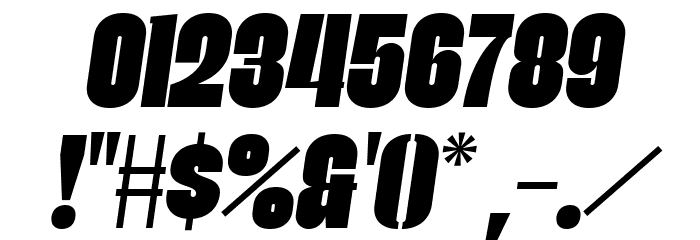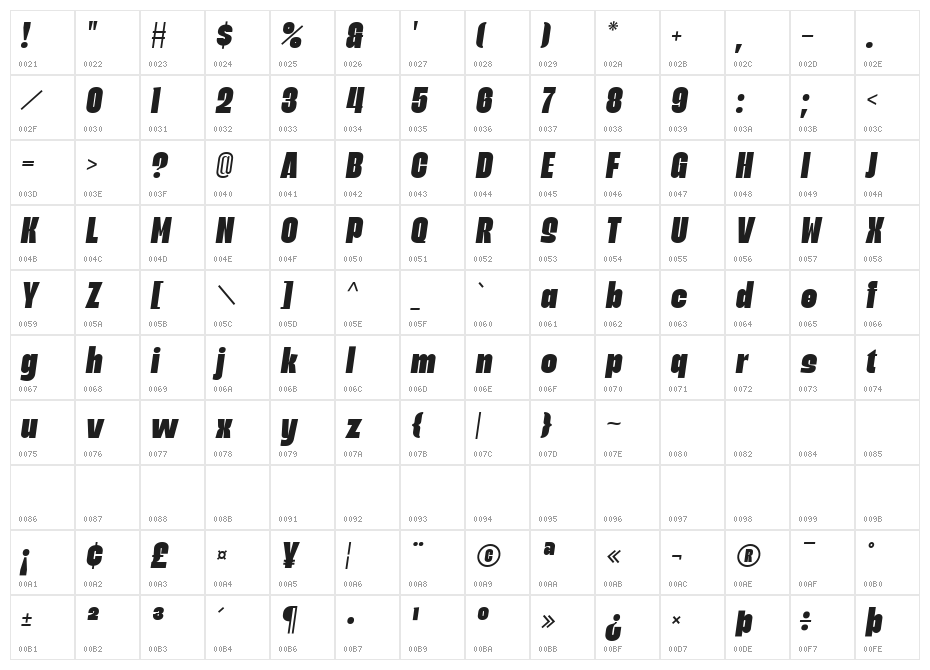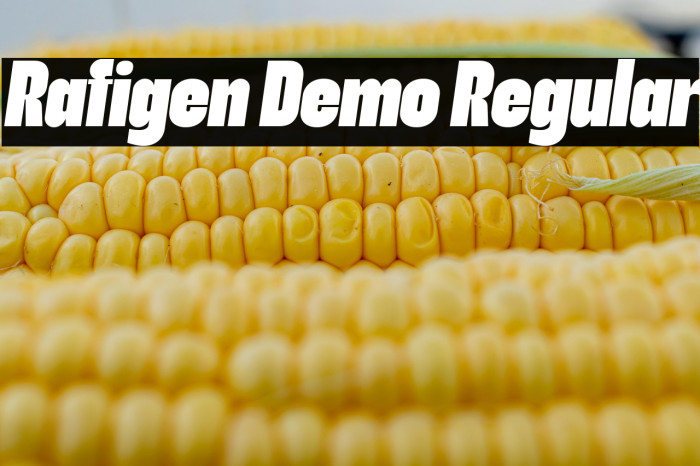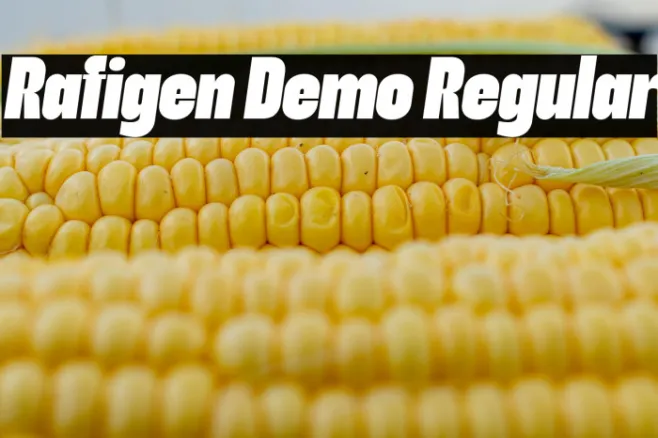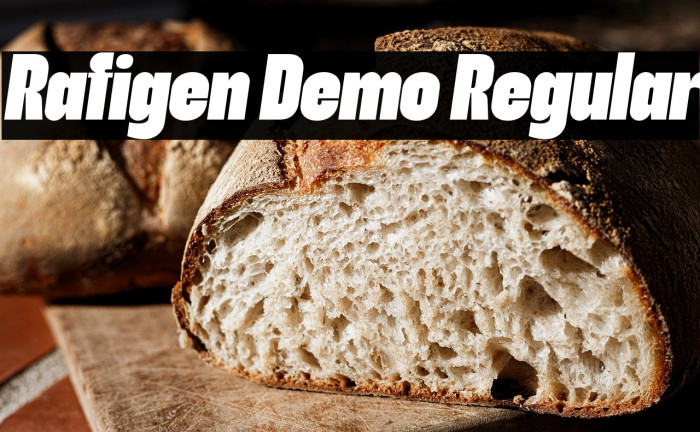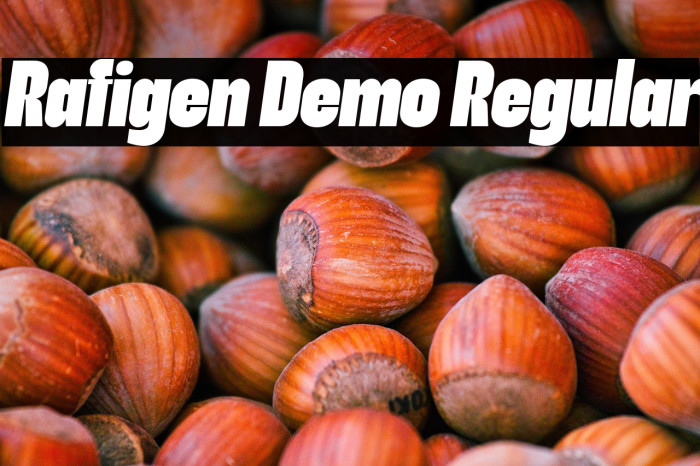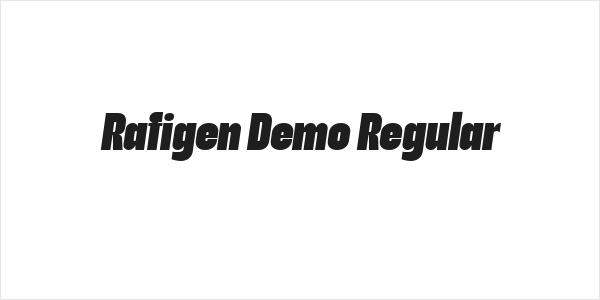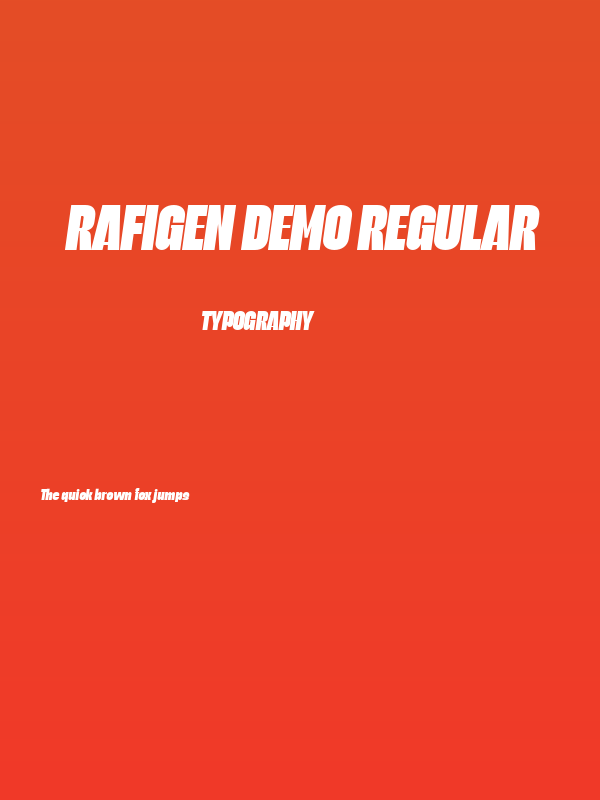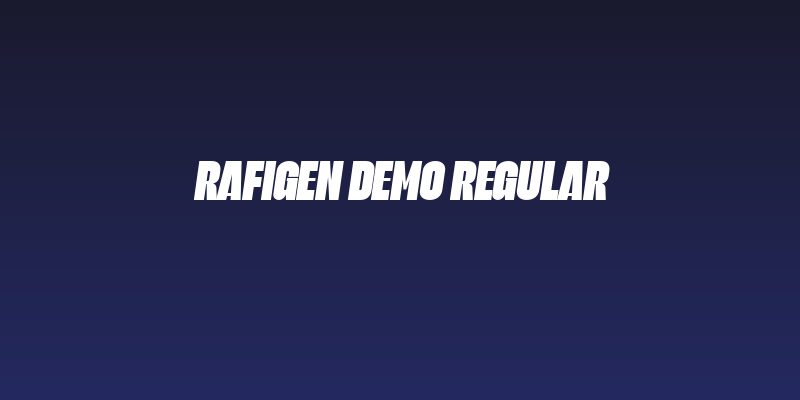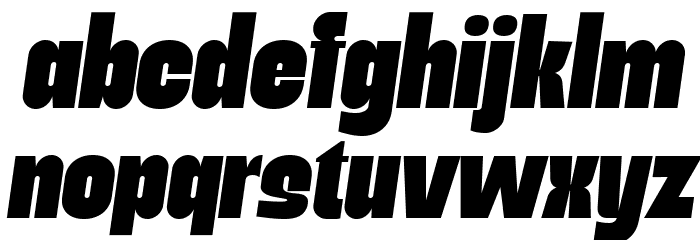
Rafigen Demo Regular Font
Rafigen Demo Regular Description
This font exhibits a bold and dynamic style with a strong presence. The characters are heavily weighted, providing a sense of impact and authority. The letters are slightly condensed, enhancing the compact and powerful look. The strokes are uniform, with minimal contrast, giving it a solid and cohesive appearance. The slanted design adds a sense of movement and energy, making it suitable for attention-grabbing headlines and titles. The font's overall style is modern and assertive, perfect for projects that require a bold statement.
| Proposed Projects | Ideal for headlines, posters, branding, and advertising materials. |